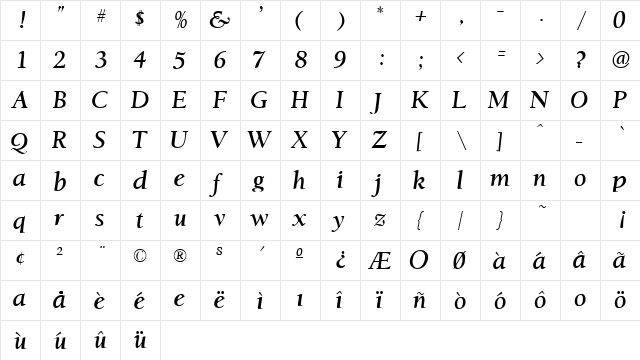
JacksonvilleOldStyle Regular
Design Context for JacksonvilleOldStyle Typeface
JacksonvilleOldStyle carries the refined structure of traditional serif typography, with bracketed terminals and considered proportions that communicate credibility and craft.
Pro Tip: Use JacksonvilleOldStyle for editorial body copy and considered headline work. Pair with a neutral sans for UI elements or captions to create a classic hierarchy.